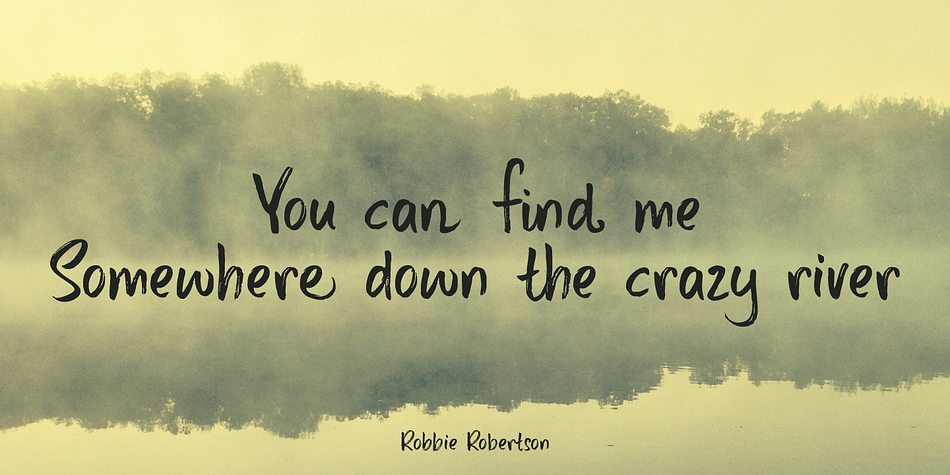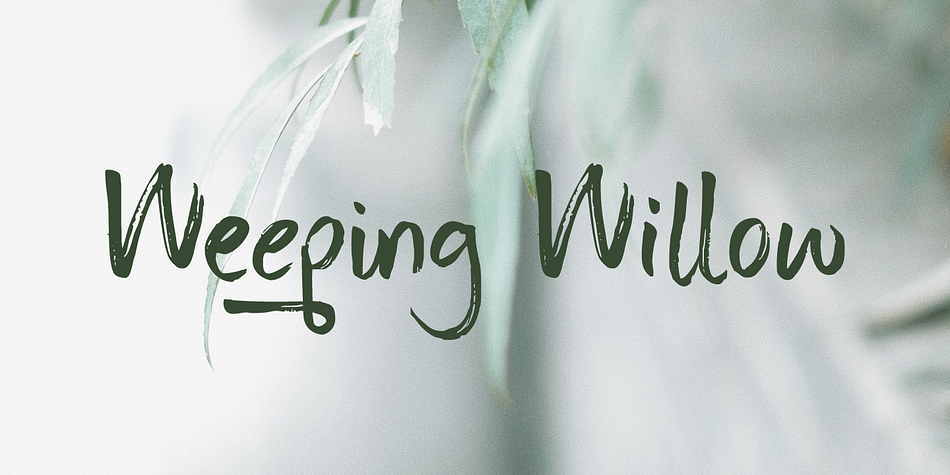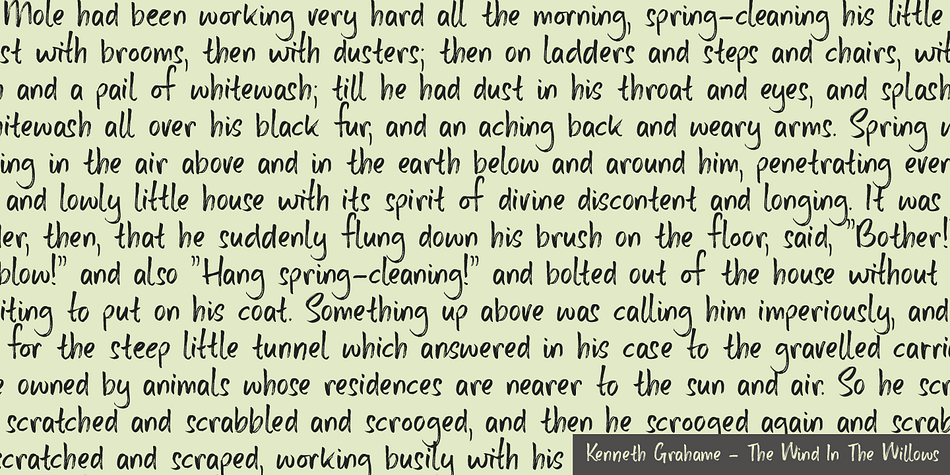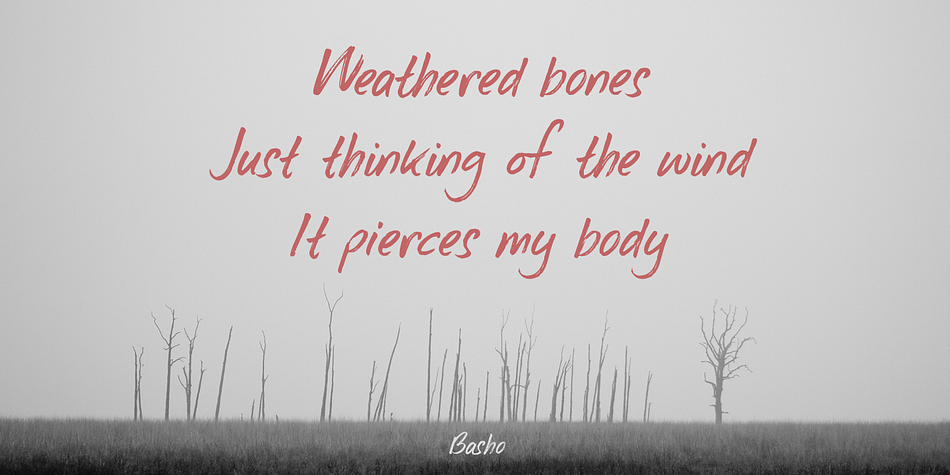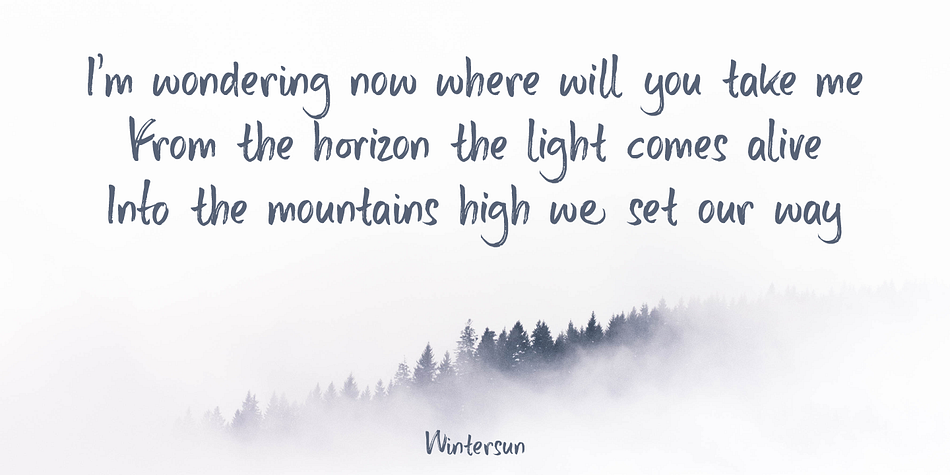
Designed by David Kerkhoff, Weeping Willow is a hand drawn and brush script font family. This typeface has two styles and was published by Hanoded.
I have always liked Weeping Willows, they sort of remind me of China. During my years as a tour guide, I spent a lot of time in China and I can tell you that the Chinese love weeping willows - they plant them everywhere!
Weeping Willow was created using a Japanese brush pen (bought in China actually…). It comes with double letter ligatures and a bunch of swashes as well.